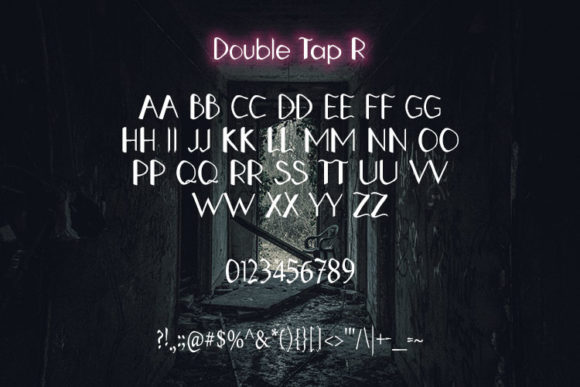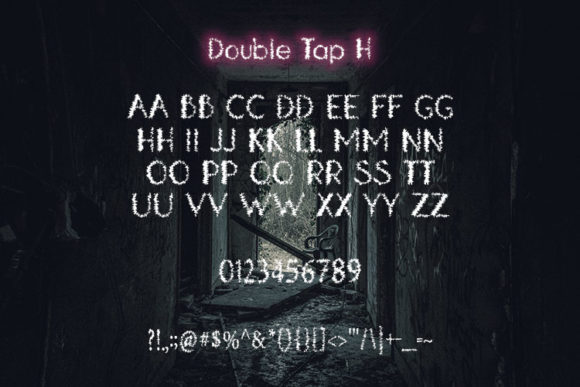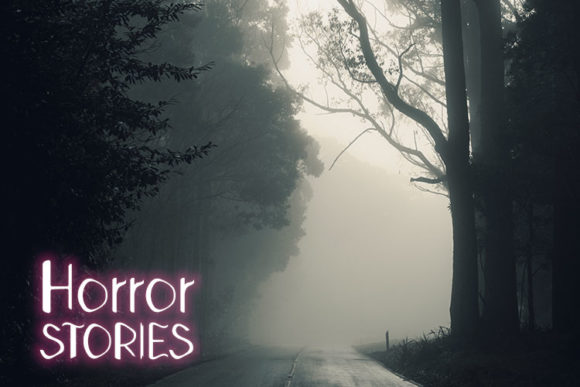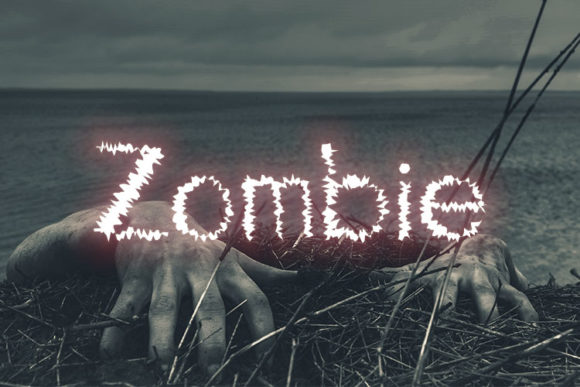
Unleash the Spook: Elevate Your Designs with Double Tap Font
In the realm of typography, fonts play a pivotal role in setting the tone and mood of any design project. Whether you’re crafting a spine-tingling horror poster, a captivating book cover, or a eerie magazine spread, the right font can make all the difference. This is where Double Tap Font comes into play – a uniquely designed display font that embodies a spooky aesthetic, perfect for projects that demand a haunting vibe.
The Essence of Double Tap Font
Double Tap is not just another font; it’s an experience encapsulated in typography. Its unique design elements are meticulously crafted to evoke a sense of mystery, suspense, and intrigue. This font is a masterpiece for designers and crafters looking to add an edge to their work. With Double Tap Font, you can transform any text into a visually striking element that captures attention and tells a story.
One of the standout features of Double Tap Font is its versatility. While it’s primarily designed with a spooky look, its adaptability makes it suitable for a wide range of projects beyond horror themes. Here are some ideas on how you can use Double Tap Font:
- Horror Posters and Movie Titles: Create eye-catching posters for horror movies or events with a font that screams suspense and fear.
- Book Covers: Give your thriller, mystery, or horror book covers a professional and eerie look that grabs potential readers.
- Magazines: Use Double Tap Font for headings or titles in magazines focused on mystery, paranormal activities, or suspenseful stories.
- Halloween and Event Invitations: Make your Halloween party invitations or any themed event invitations stand out with a spooky touch.
- Merchandise: Design unique merchandise like t-shirts, mugs, or posters that require a distinctive and captivating font.
Why Choose Double Tap Font?
Choosing Double Tap Font for your design projects comes with numerous benefits:
- Unique Aesthetic: Stand out from the crowd with a font that has a distinct and uncommon look.
- High Readability: Despite its unique design, Double Tap Font maintains high readability, making it perfect for titles, headings, and short texts.
- Customizable: Experiment with different sizes, colors, and effects to match your project’s mood and style.
- Support for Various Projects: From digital designs to print materials, Double Tap Font can be used across various mediums.
Tips for Using Double Tap Font
To maximize the impact of Double Tap Font in your designs, consider the following tips:
- Combine with Images: Pair the font with dark, mysterious, or eerie images to enhance the spooky vibe.
- Play with Colors: Experiment with bold and dark colors to amplify the font’s inherent spookiness.
- Mix with Other Fonts: For contrast, use Double Tap Font alongside simpler fonts for body text or other design elements.
- Consider the Audience: Ensure that the overall design, including the use of Double Tap Font, aligns with your target audience’s preferences and expectations.
Double Tap Font is more than just a display font; it’s a tool that can transform your design projects with its unique spooky aesthetic. Whether you’re a professional designer or a crafter, this font offers endless possibilities for creativity and expression. By incorporating Double Tap Font into your projects, you’re not just choosing a font – you’re setting the stage for a captivating visual experience that leaves a lasting impression.
So, why wait? Dive into the world of Double Tap Font and let your designs speak with a voice that’s both haunting and mesmerizing. Elevate your work, engage your audience, and make your mark with a font that’s sure to turn heads.